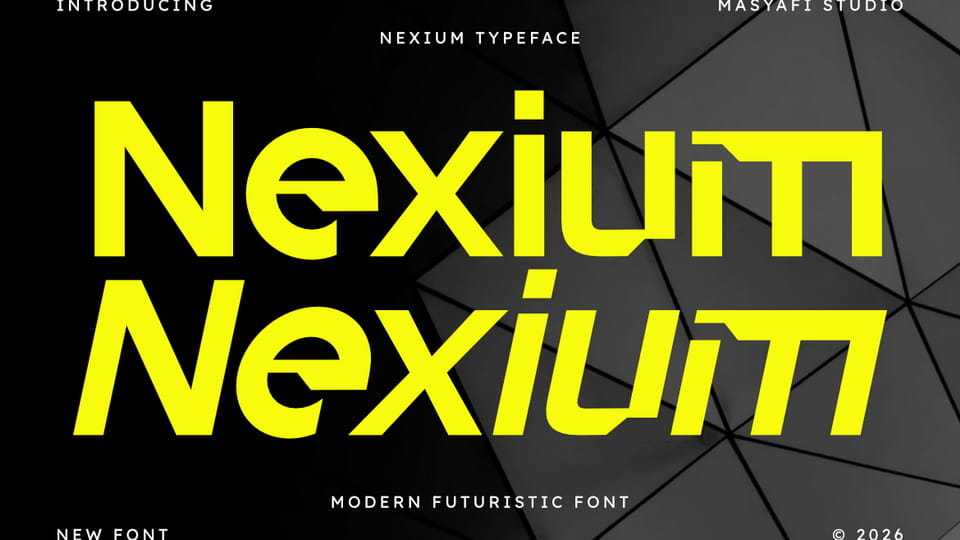
Downlod Nexium font, a cutting-edge futuristic typeface designed to bring a bold, high-tech aesthetic and industrial precision to your modern design projects.
Designer: Masyafi Studio